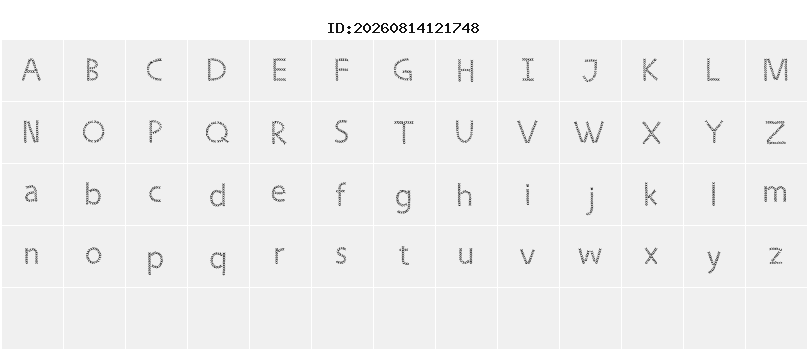
Strong Leaf Preview
• Font Name: Strong Leaf
• Full Font Name: Strong LeafRegular
About Strong Leaf.ttf
Strong Leaf.ttf is a modern, elegant sans-serif font designed for ultimate readability and visual harmony. Perfect for branding, headlines, web design, and print materials.